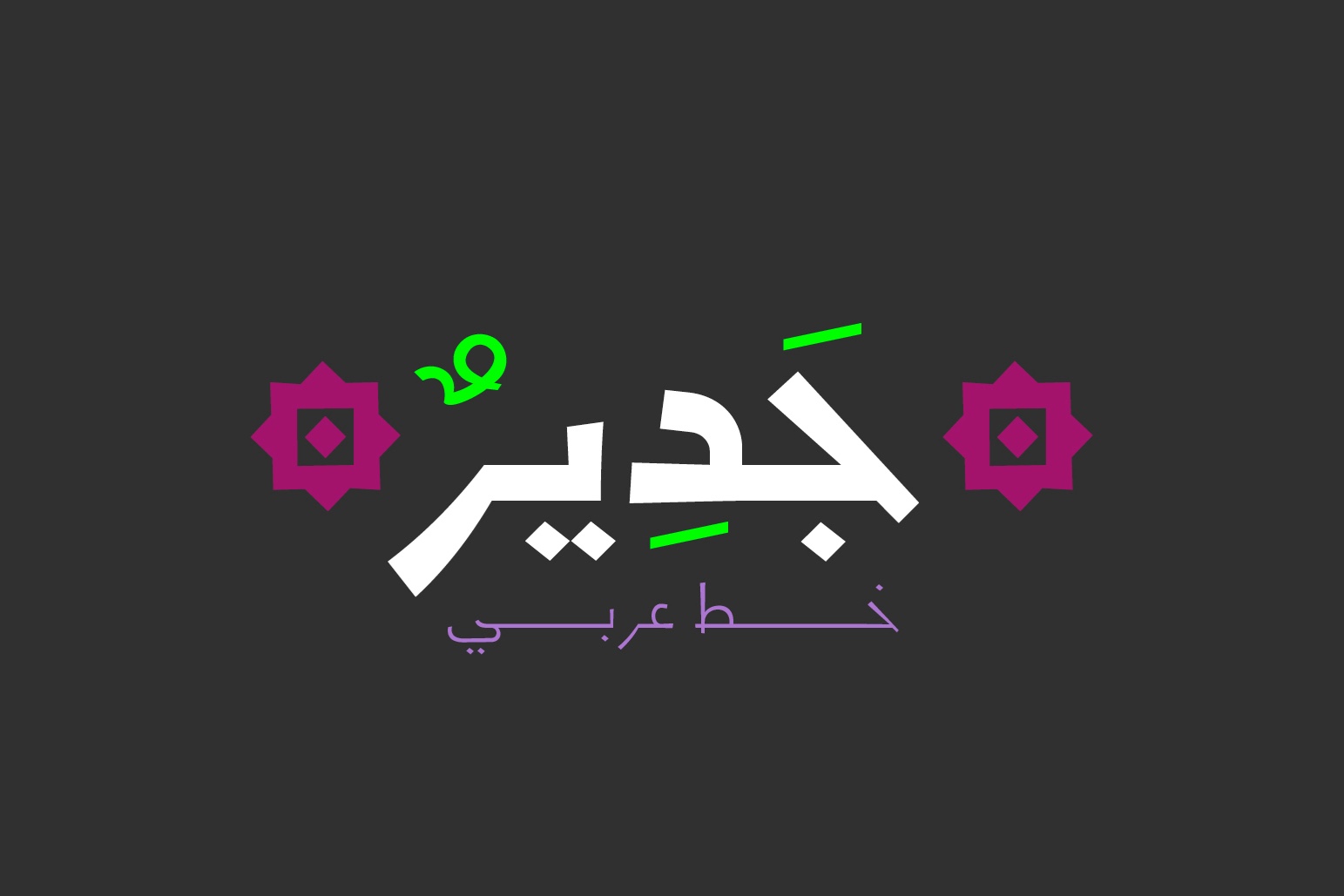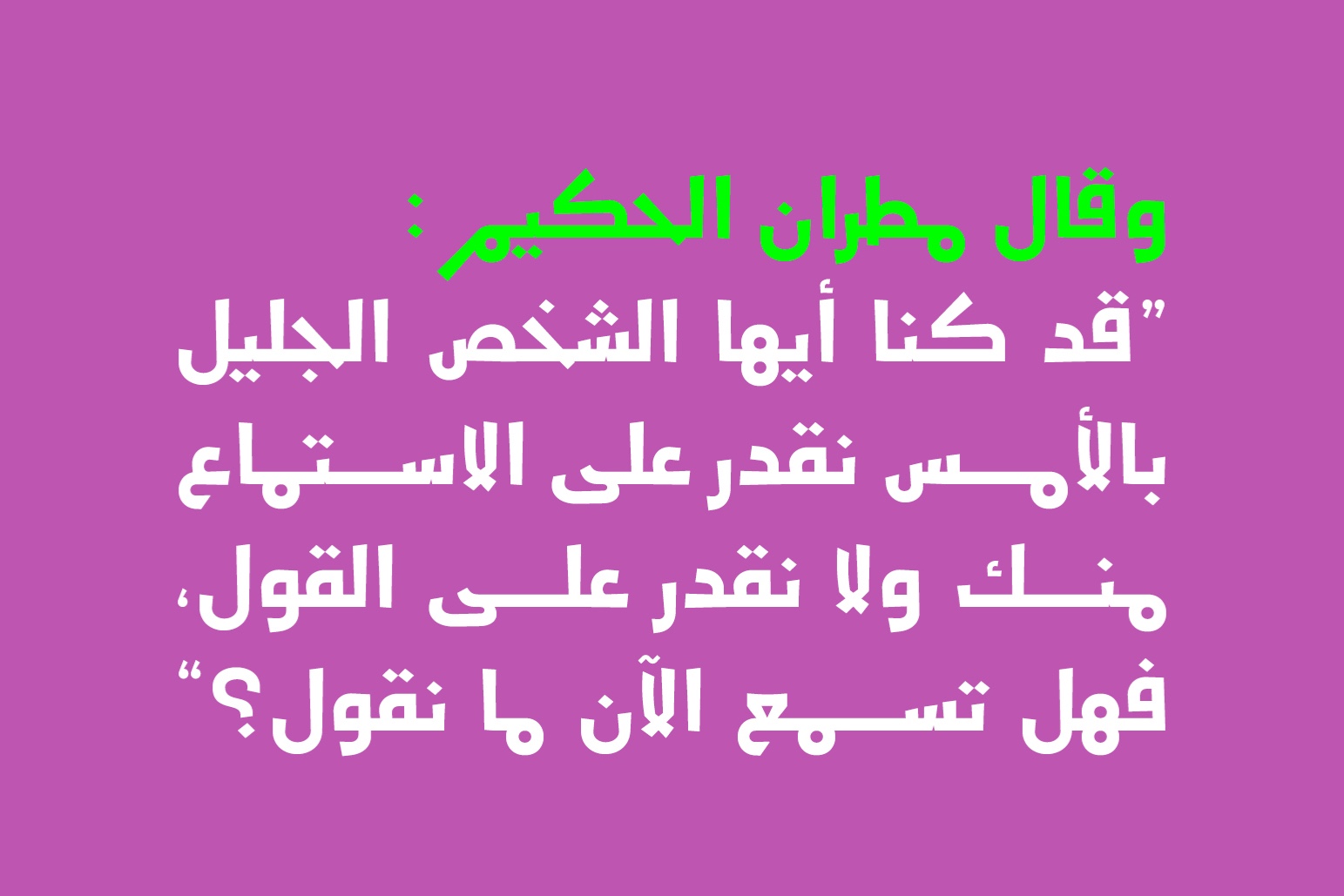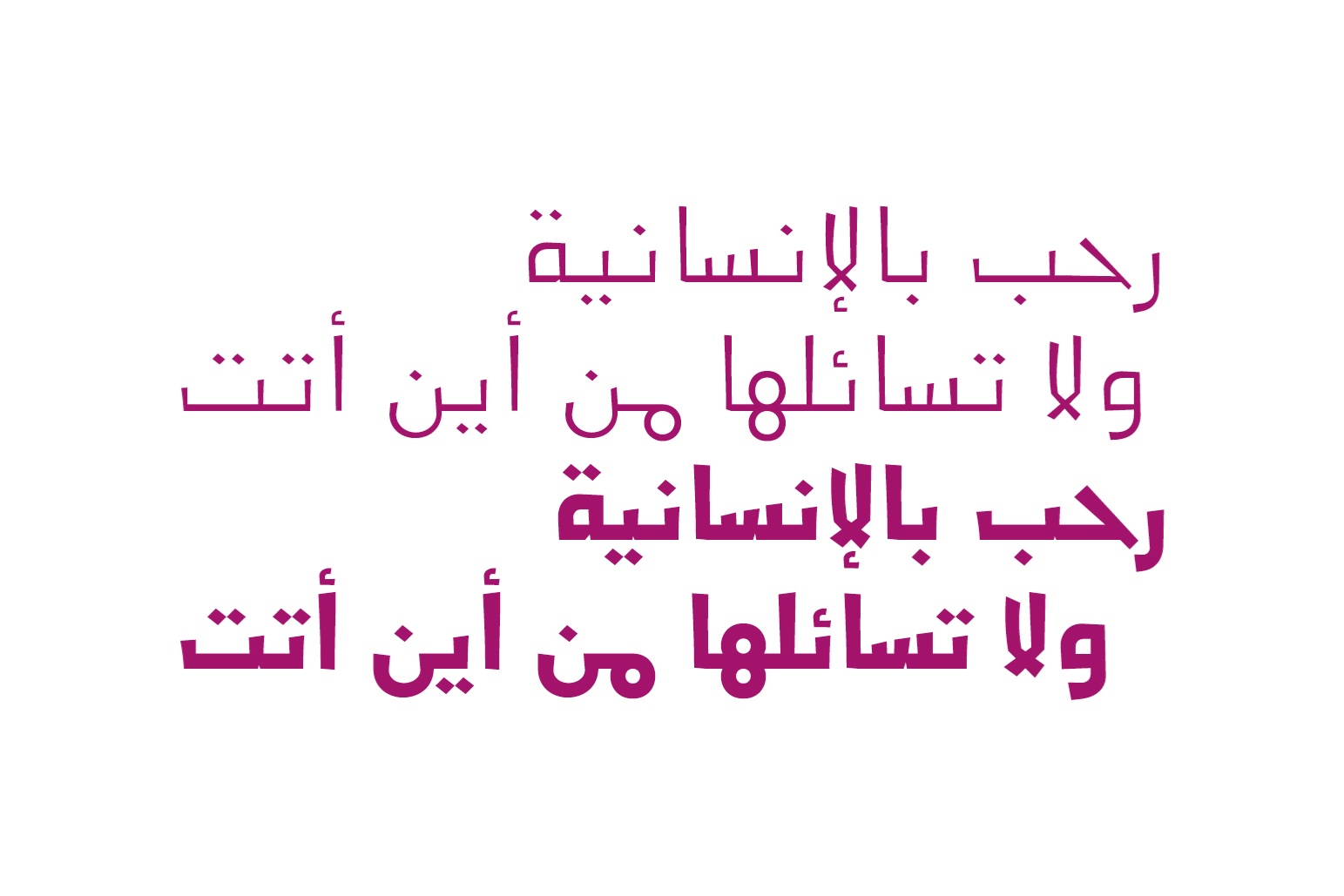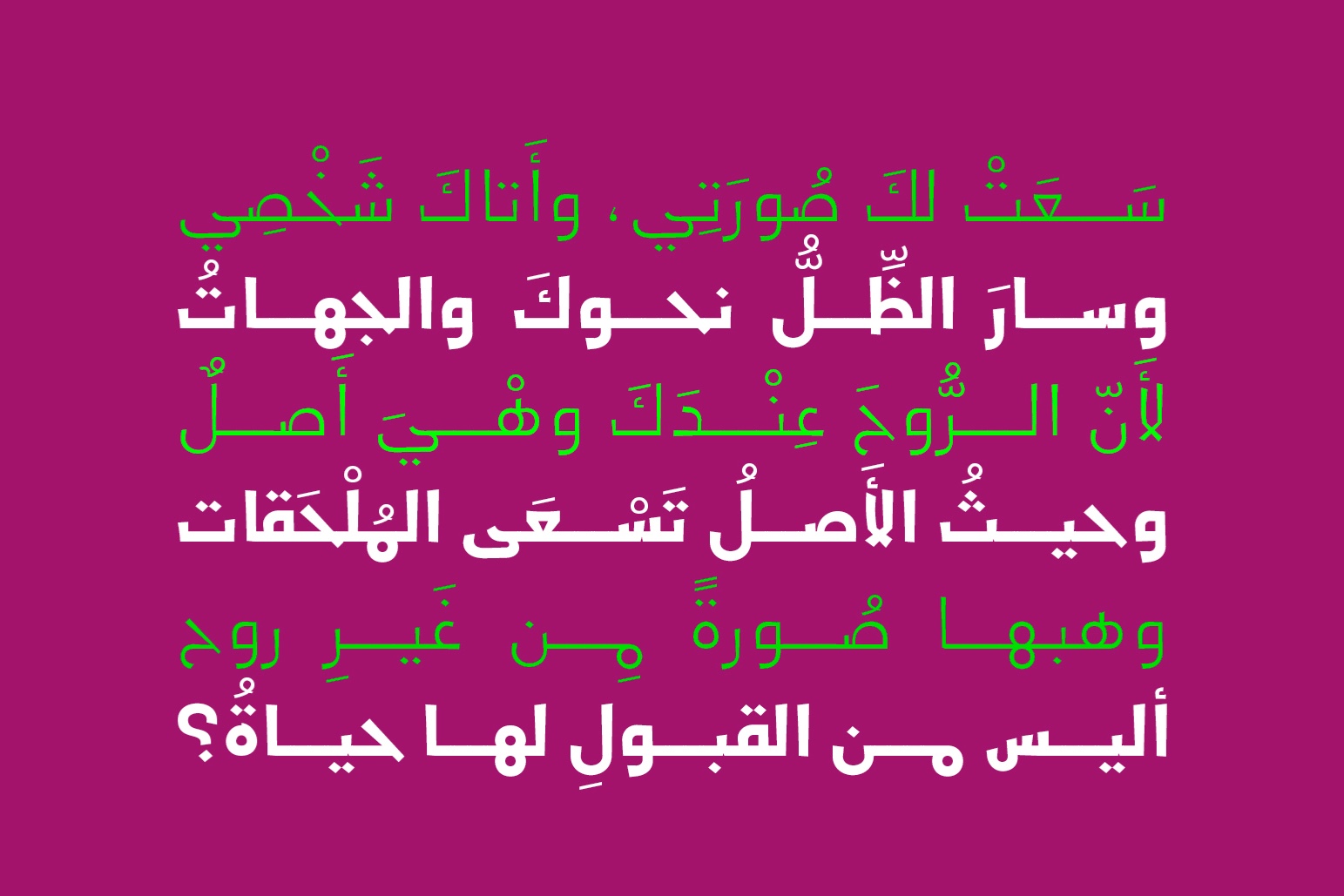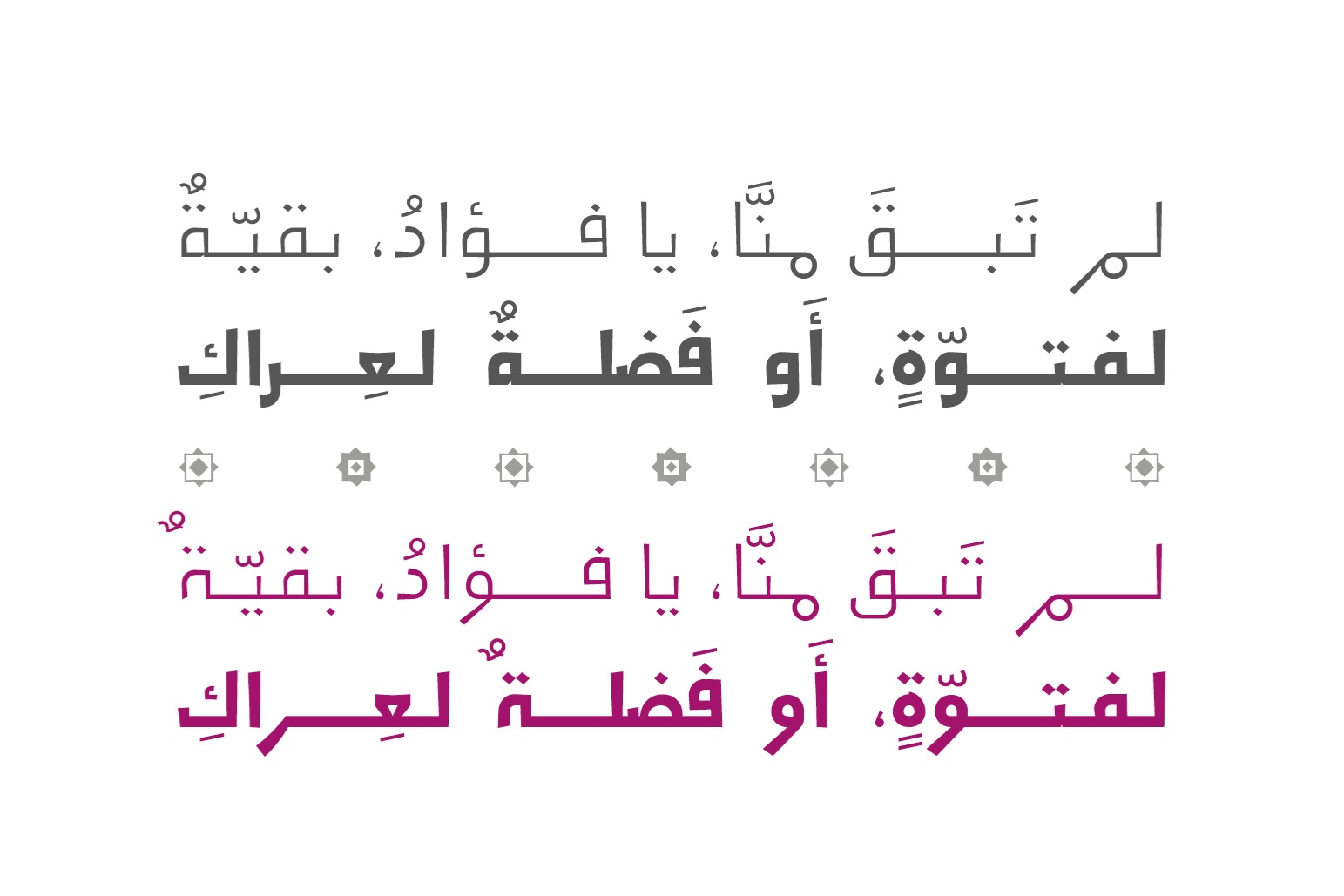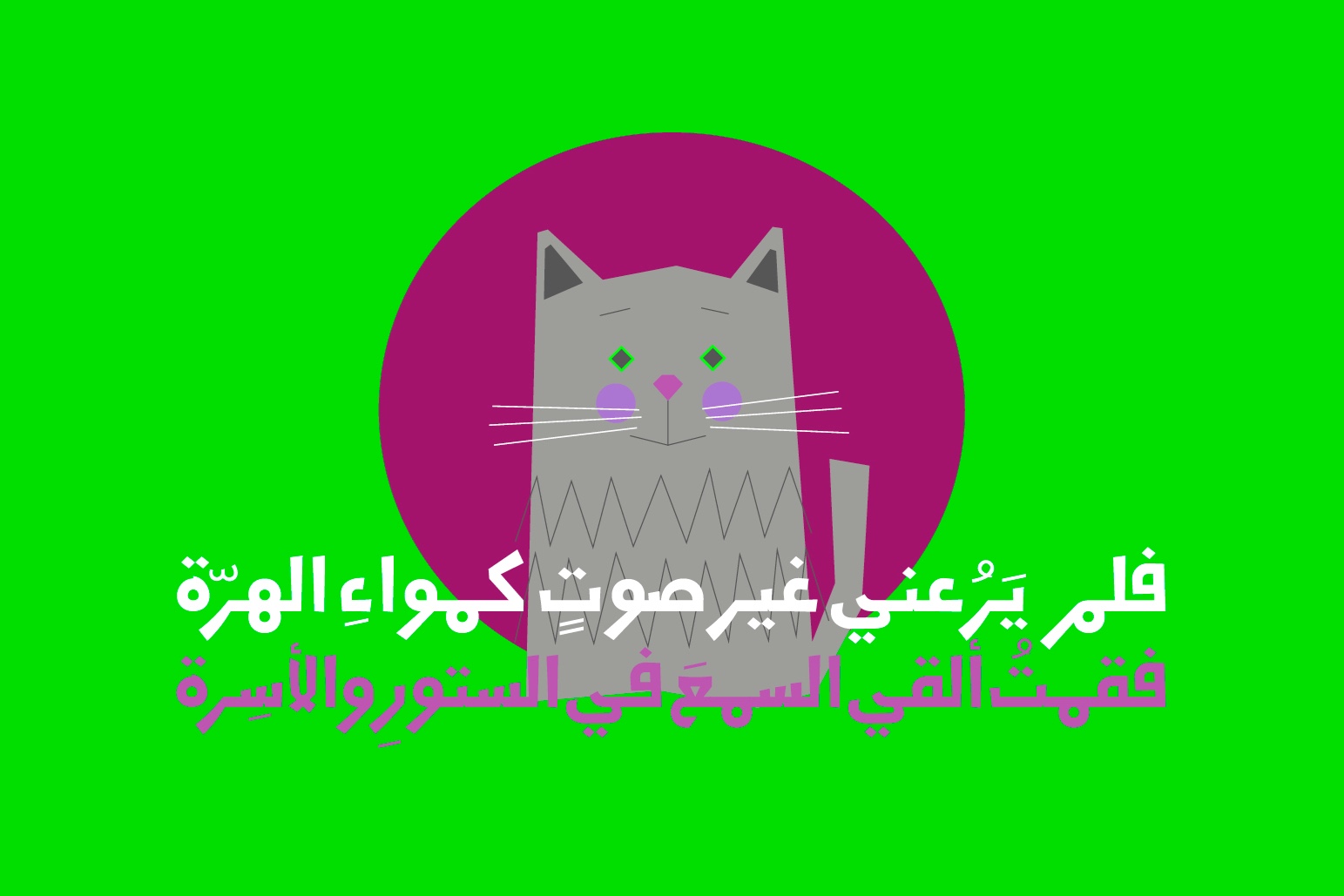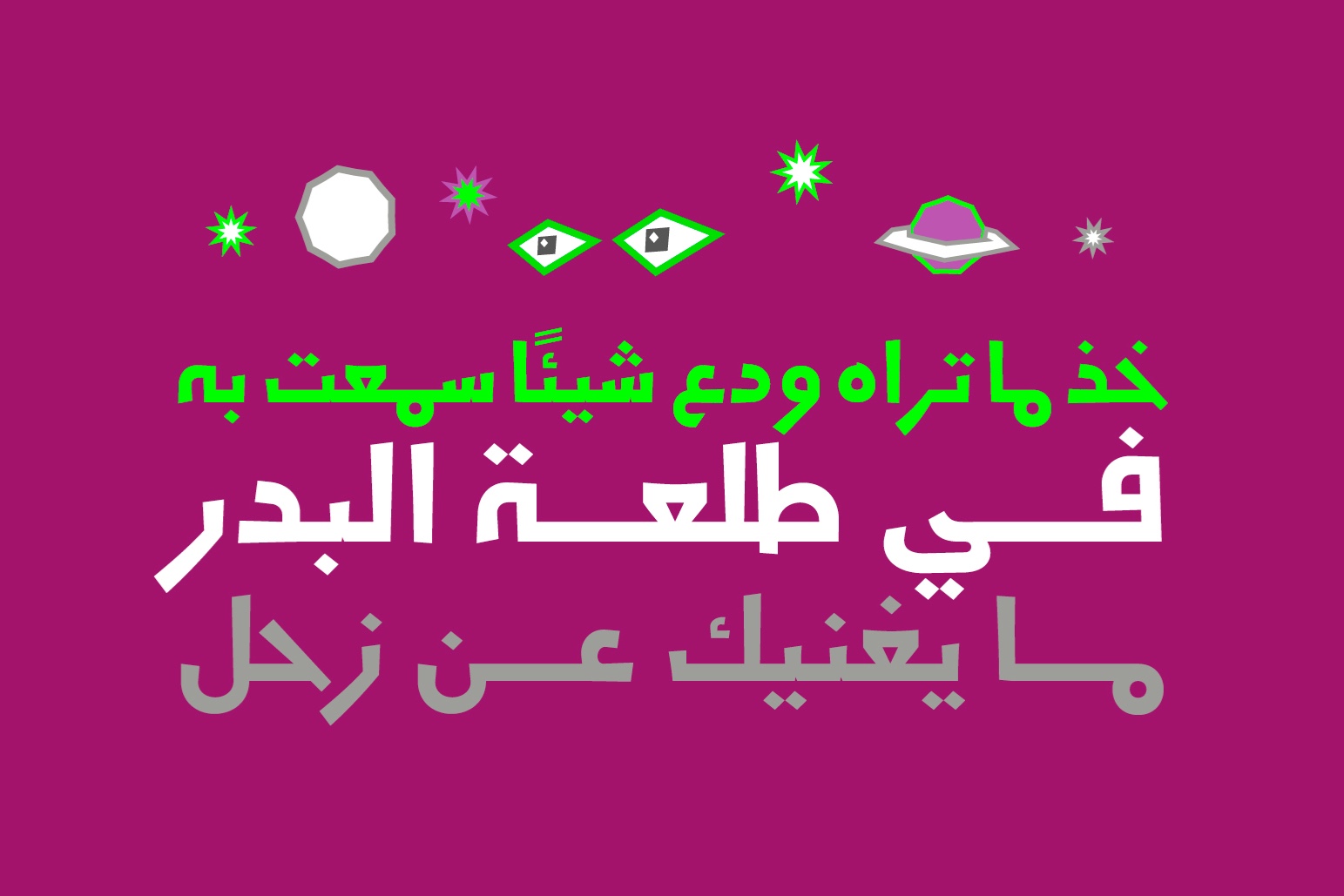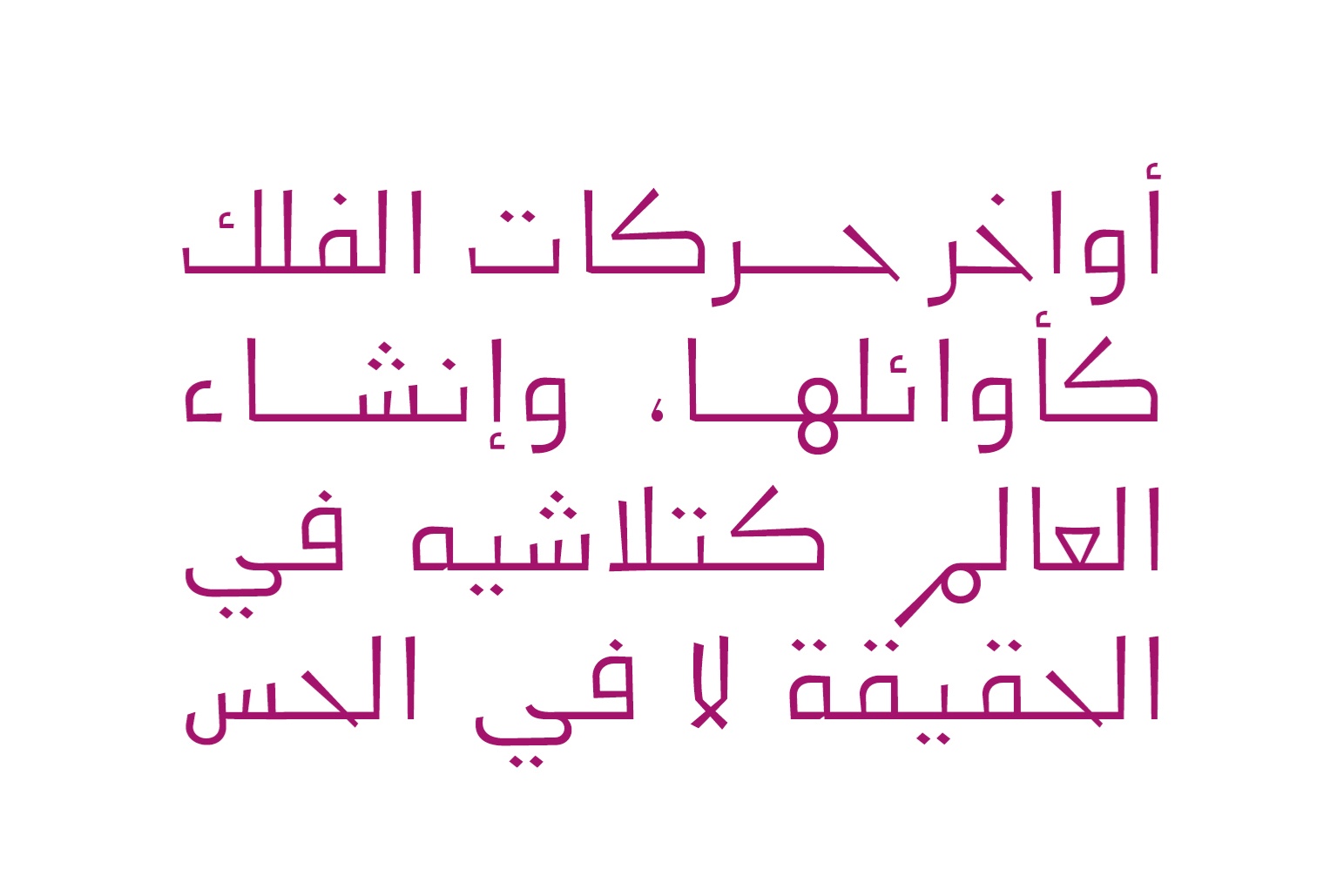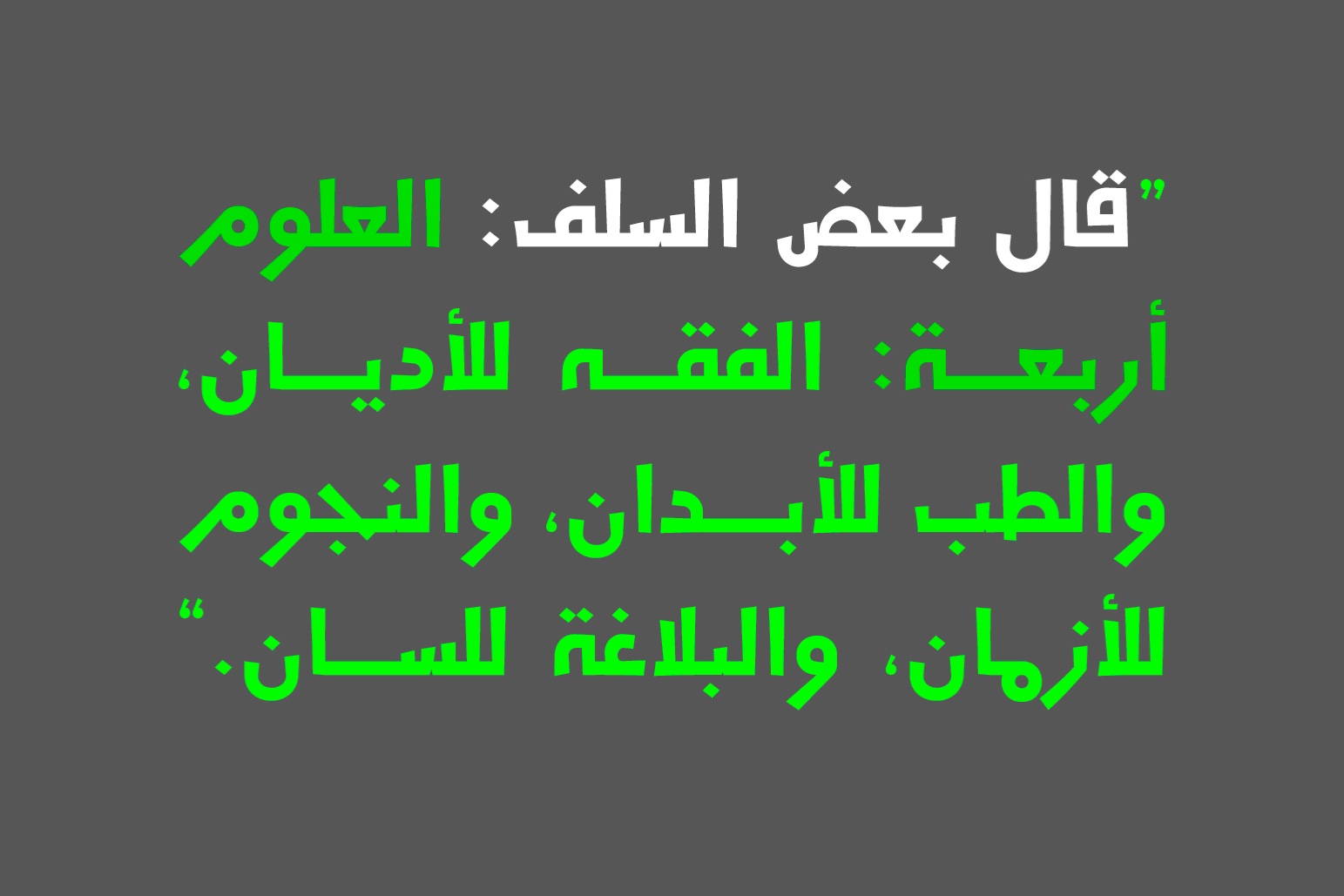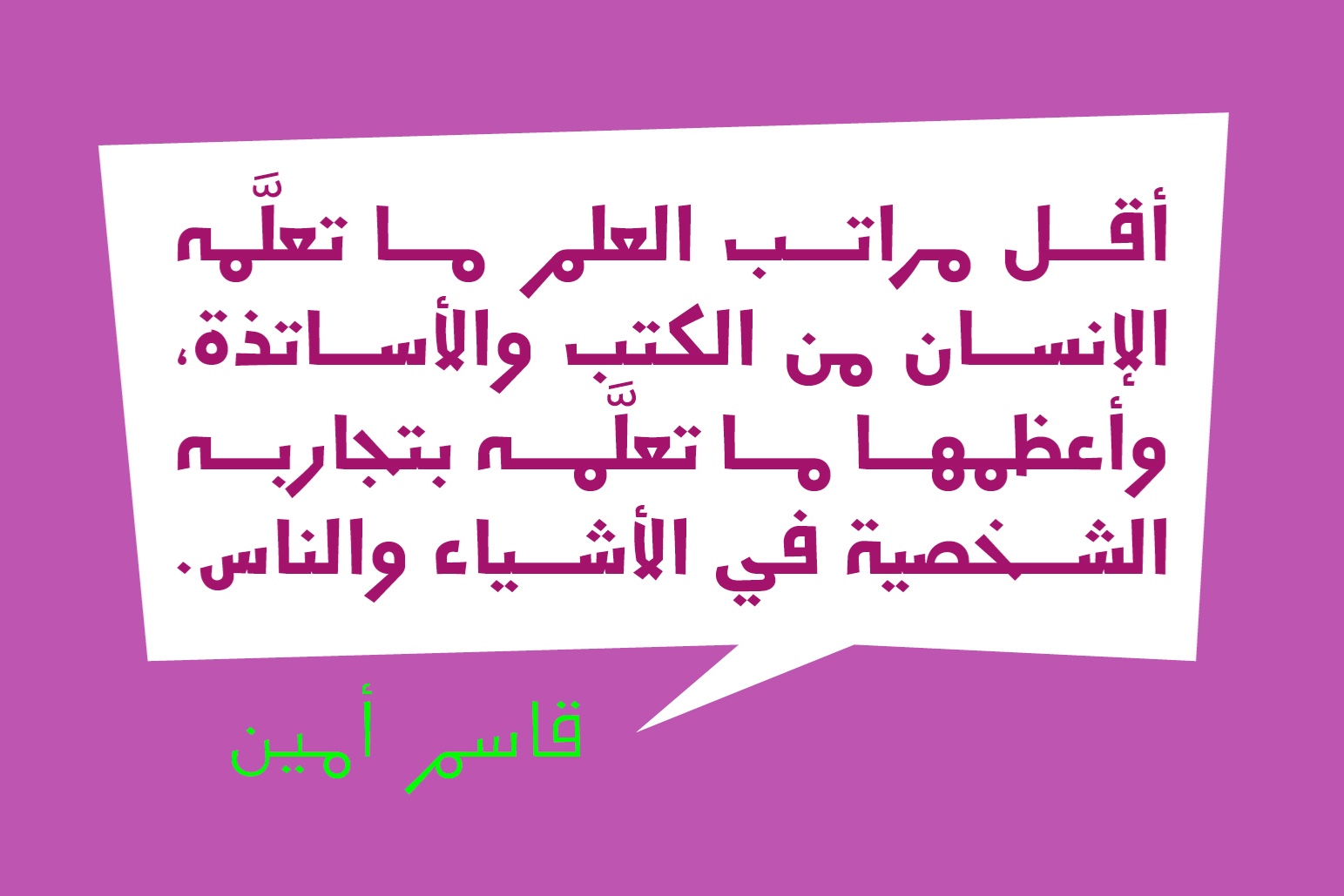
Jadeer is an Arabic display font styled with a casual, contemporary flair. It is well-suited for advertising, publication design, web design, and mobile applications. The typeface comes in two weights: Regular and Bold.
Ruglar and bold